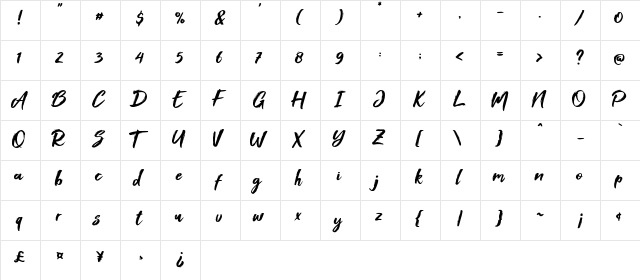
Foxlite Script Regular
| Foundry | Khurasan |
| Designer | Khurasan |
Design Context for Foxlite Script Typeface
Foxlite Script flows with the natural rhythm of handwritten lettering, making it ideal for designs that call for warmth and personal expression.
Font Pairing: Combine Foxlite Script with a simple geometric sans for maximum contrast — the tension between flowing curves and clean structure is a classic typographic pairing.
Pro Tip: Pair Foxlite Script with a clean sans-serif for supporting text. The contrast between fluid script and geometric structure creates an elegant typographic hierarchy.